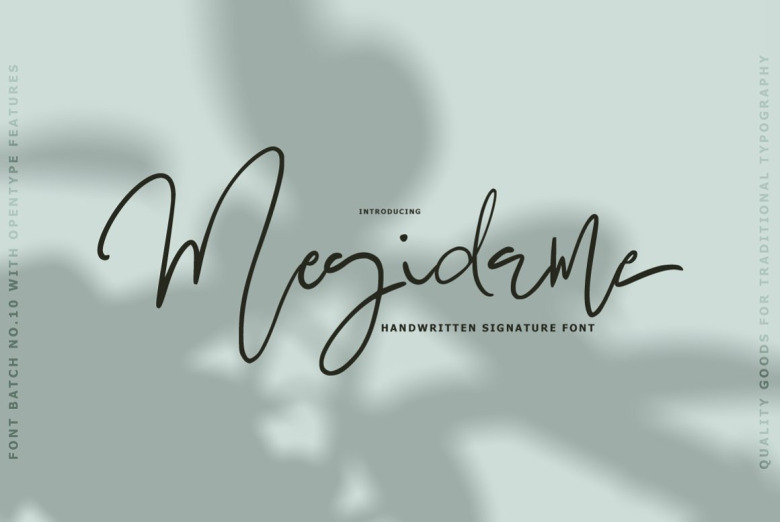
Megidame Signature Font
Megidame Signature with a handmade Signature style, decorative characters and a dancing baseline! So beautiful on invitation like greeting cards, branding materials, business cards, quotes, posters, and more!!
Megidame Signature Font